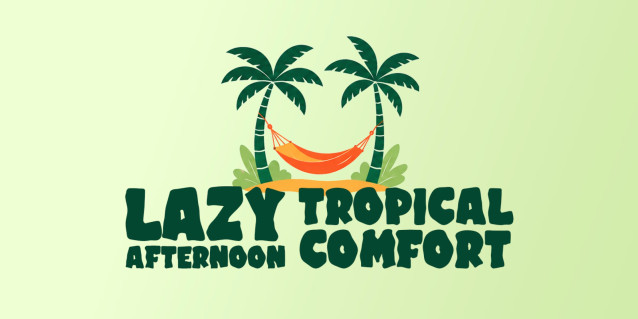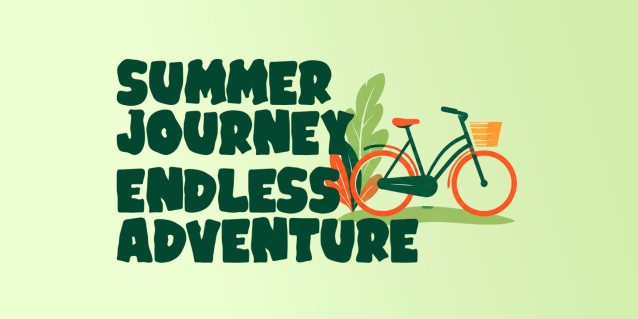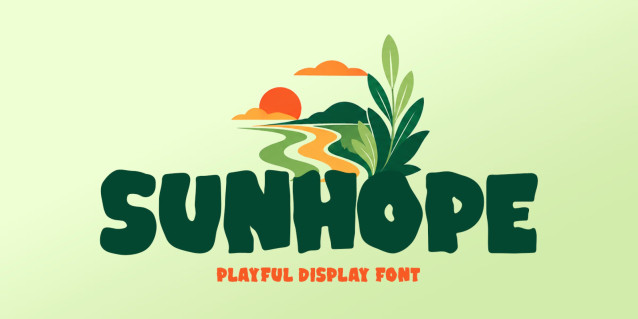
Sunhope Font
Sunhope is a playful display font with a bold, chunky style inspired by the warmth, freedom, and beauty of summer. Its cheerful letterforms bring a fun and energetic personality to any design. Perfect for logos, branding, packaging, posters, t-shirts, social media, and seasonal projects that need a bright, friendly, and memorable look.